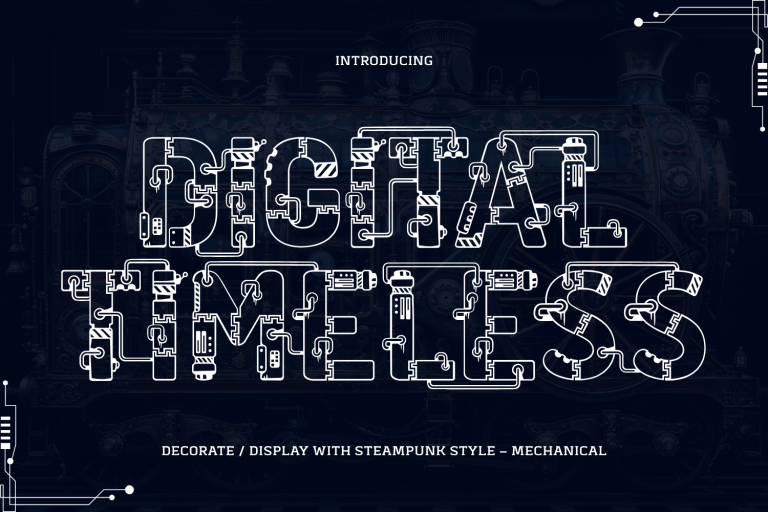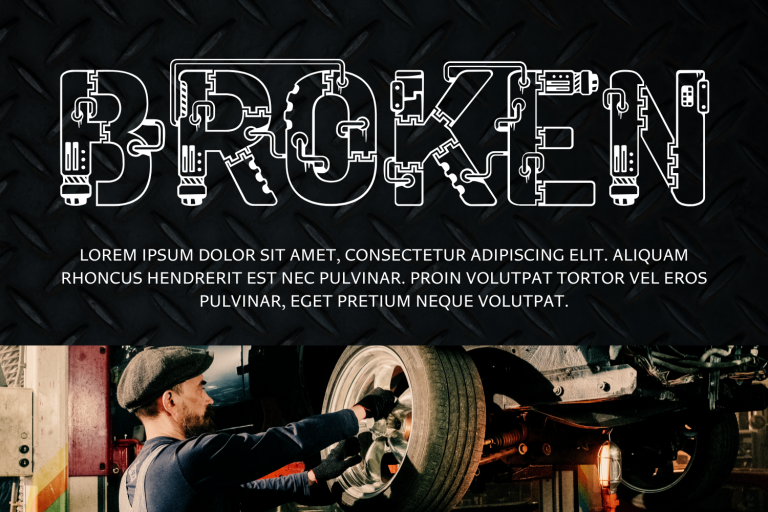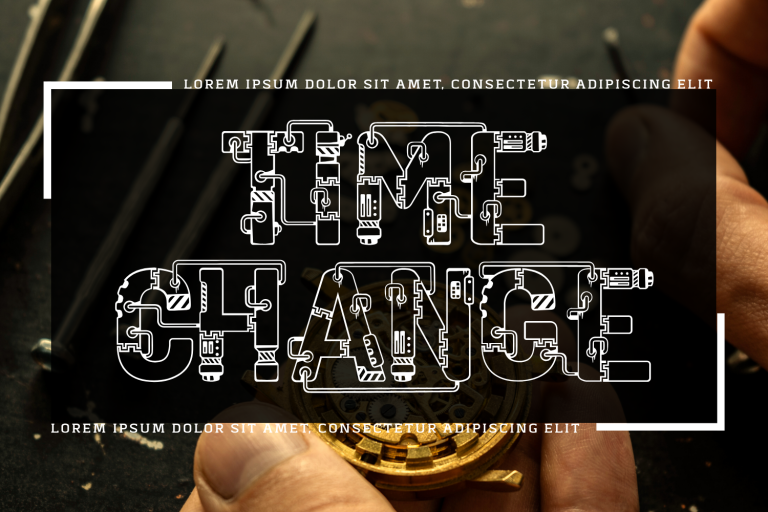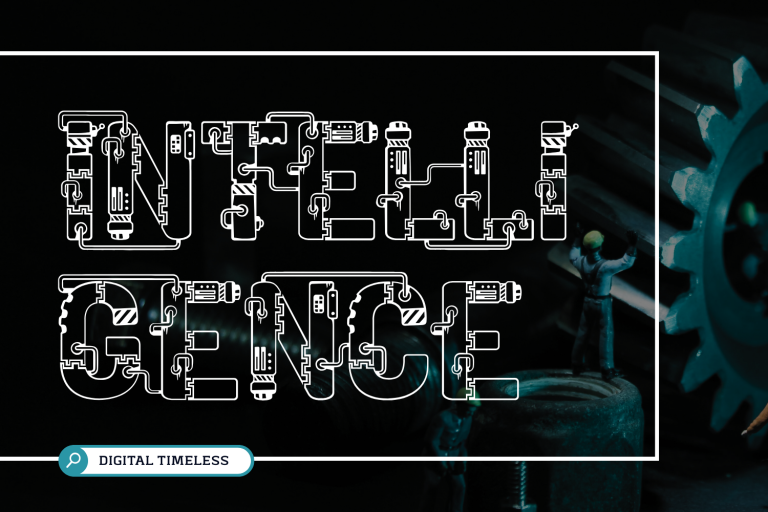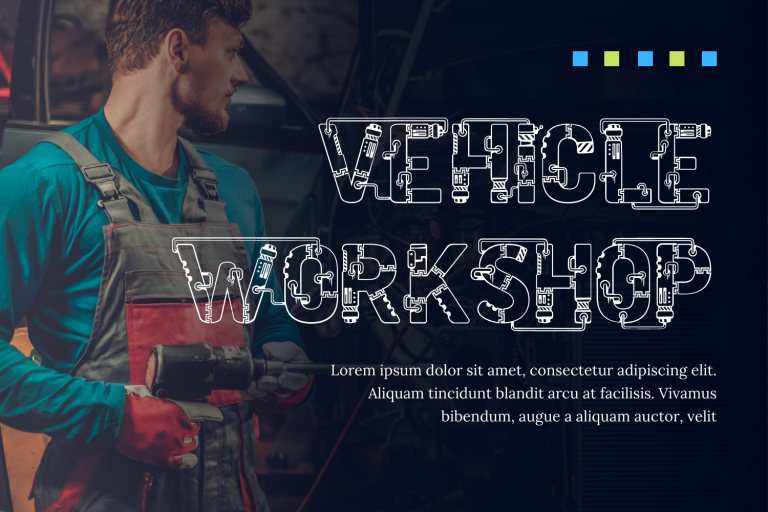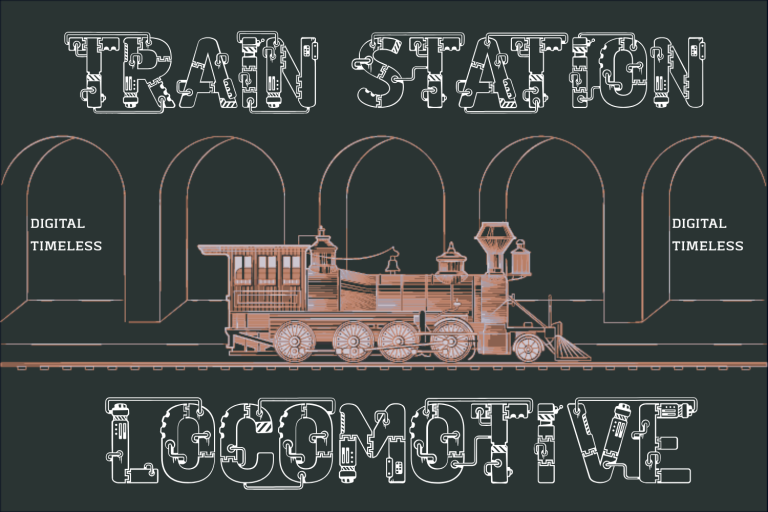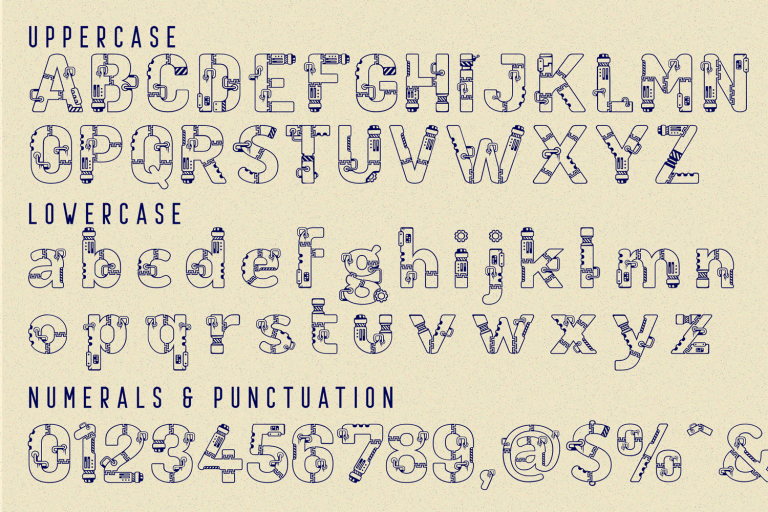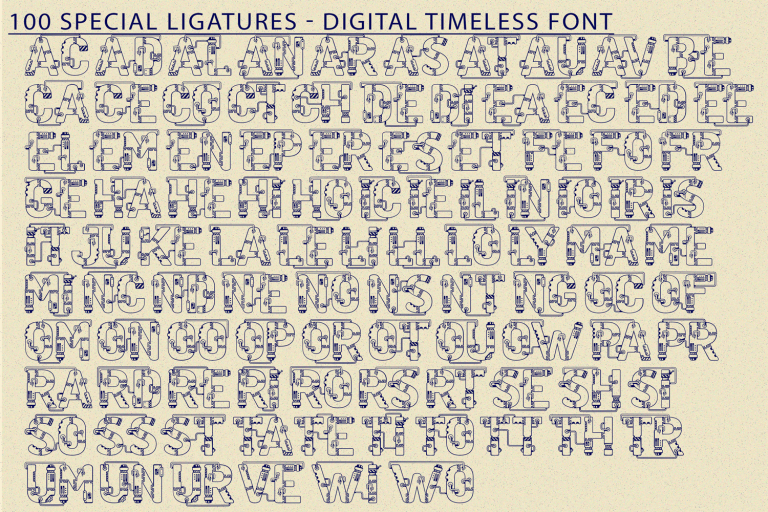
DIGITAL TIMELESS TECHNO FONT – Industrial Techno Blueprint Font, is a bold industrial display typeface inspired by mechanical blueprints, pipe circuits, and futuristic engineering. Each character is designed with intricate linework, modular connections, and tech-inspired detailing, creating a unique industrial-meets-digital look that is perfect for technology branding, cyberpunk posters, sci-fi titles, and gaming interfaces. With over 100 stylistic ligatures and a complete set of characters, DIGITAL TIMELESS offers both creativity and functionality. Whether used for large display headlines or as a decorative element in your designs, this font delivers a distinctive high-tech identity that instantly grabs attention.
• Uppercase and Lowercase Letters
• 100+ Special Ligatures
• Multilingual Support with Accented Characters
• Detailed Industrial & Blueprint-Inspired Letterforms
✨ About 100 ligatures combined with Stylistic Alternates Font:
AC AD AL AN AR AS AT AU AV BE CA CE CH CO CT DE DI EA EC ED EE EL EM EN EP ER ES ET FE FO FR GE HA HE HI HO IE IC IL IN IO IR IS IT JU KE LA LE LI LL LO LY MA ME MI NC ND NE NG NO NT NS OC OF OM ON OO OP OR OT OU OW PA PR RA RD RE RI RO RS RT SE SH SI SO SS ST TA TE TH TI TO TR TT UM UN UR VE WI WO
DIGITAL TIMELESS TECHNO FONT